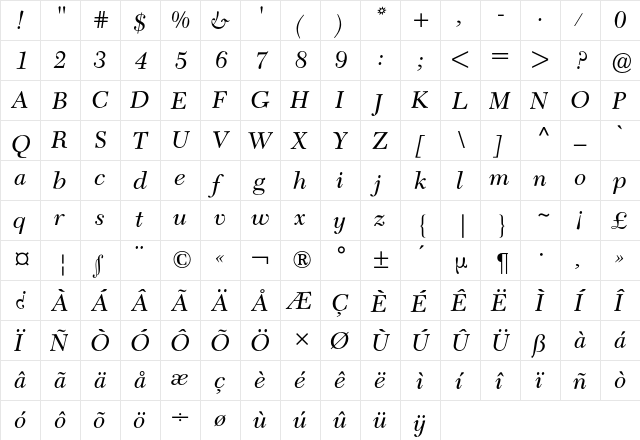
Caledonia BQ Regular Font Preview
Caledonia BQ Regular
Design Context for Caledonia BQ Typeface
Caledonia BQ is a composed and adaptable typeface that performs quietly and consistently across a wide range of design contexts.